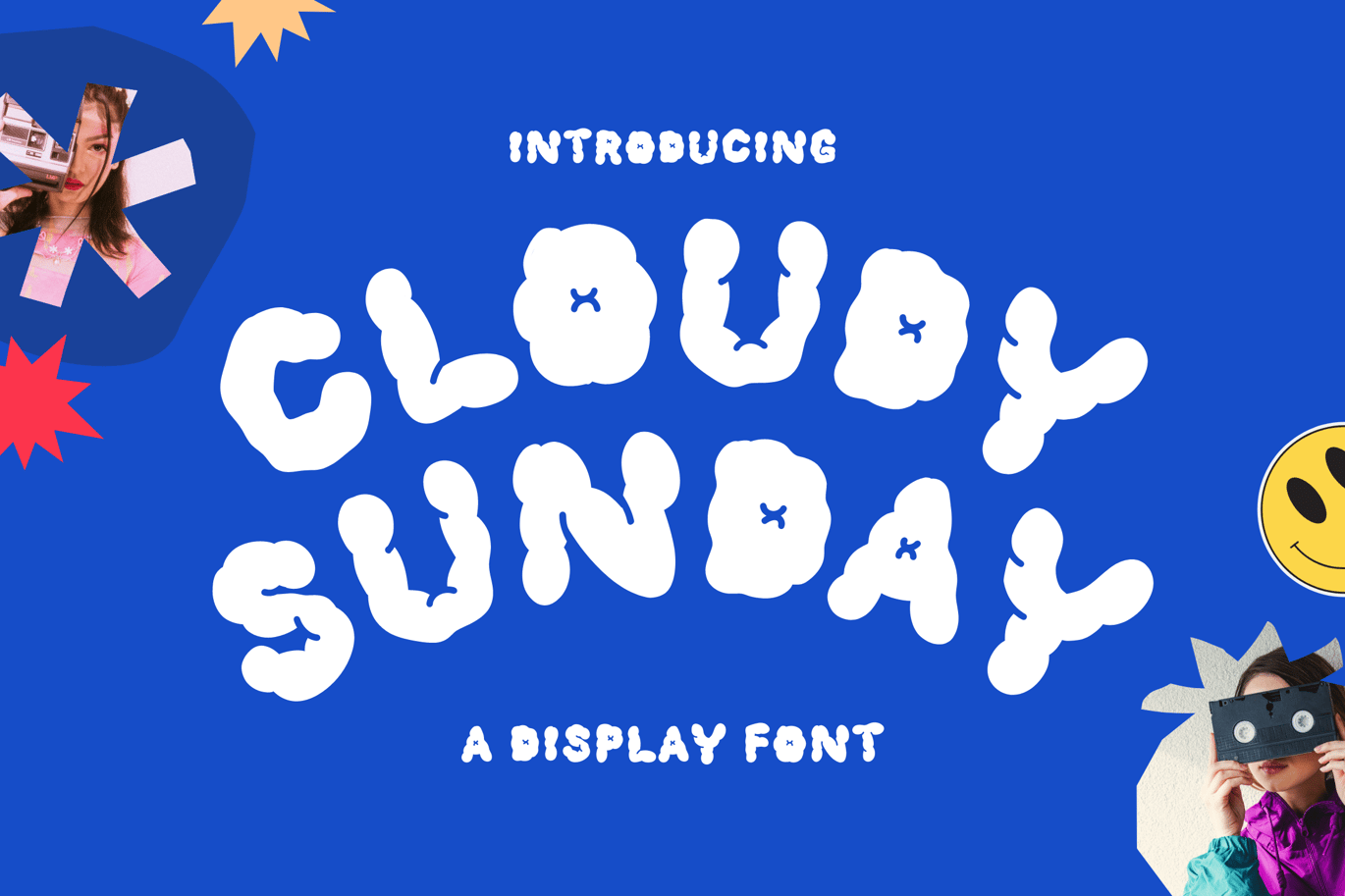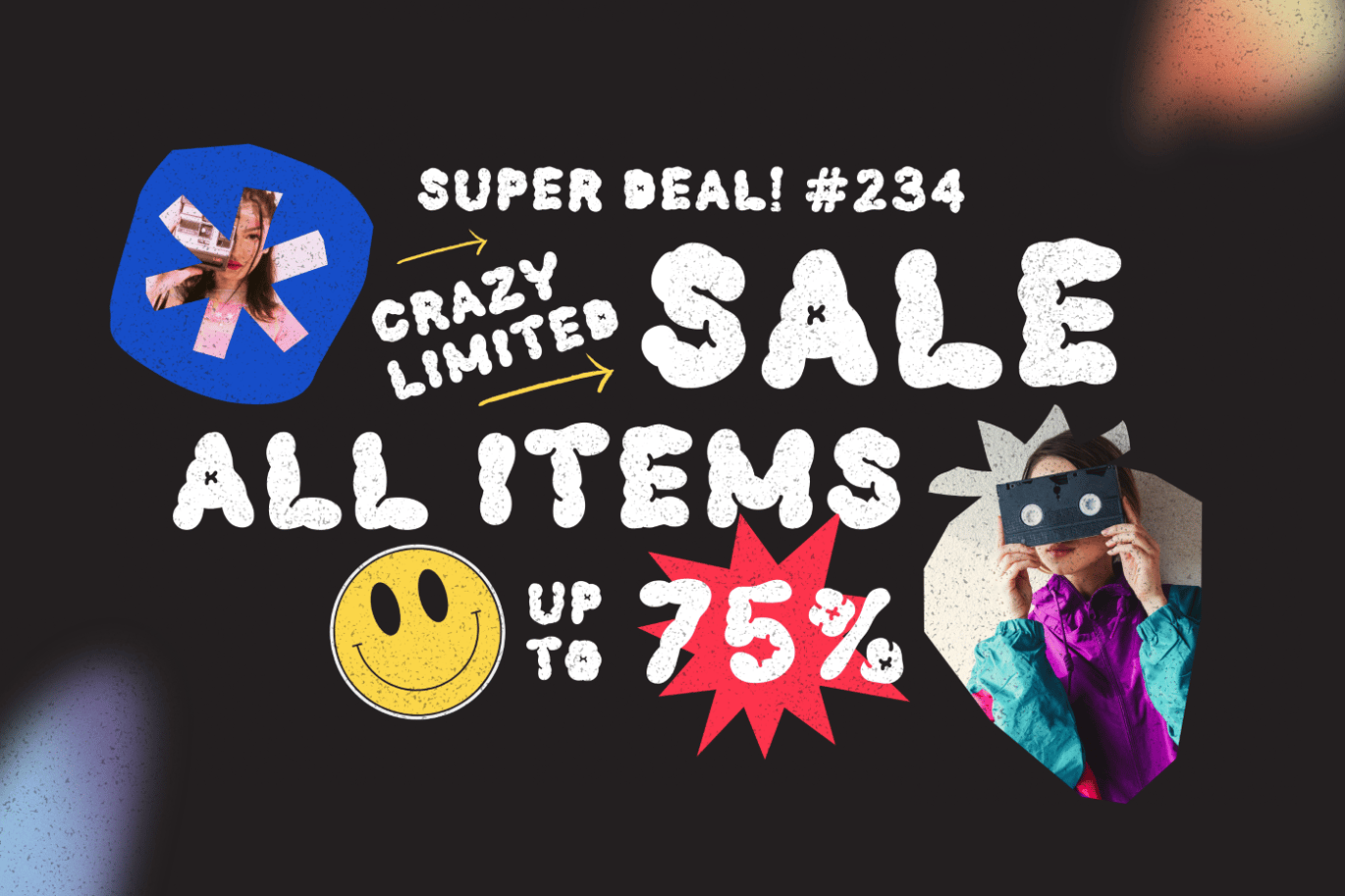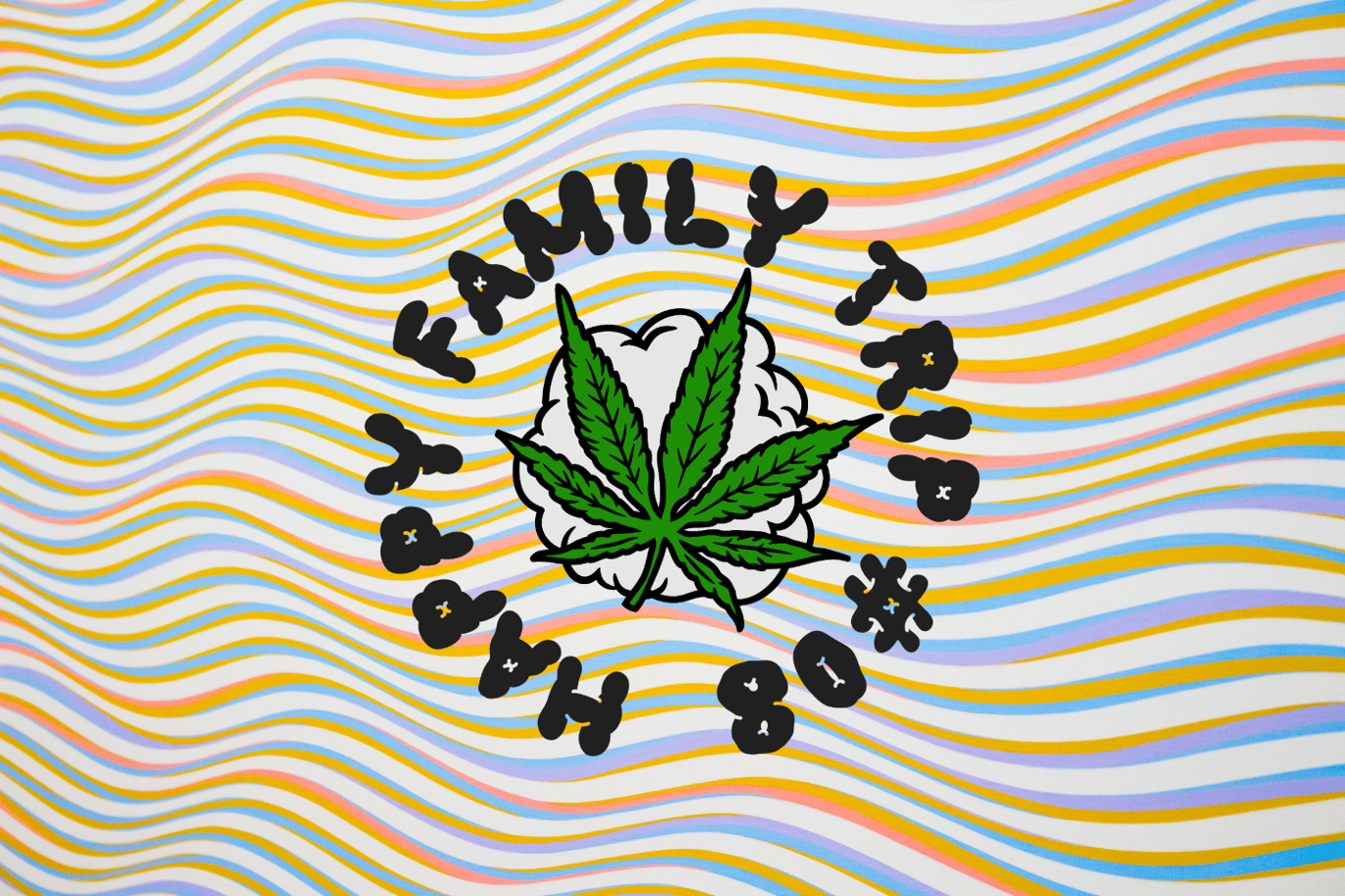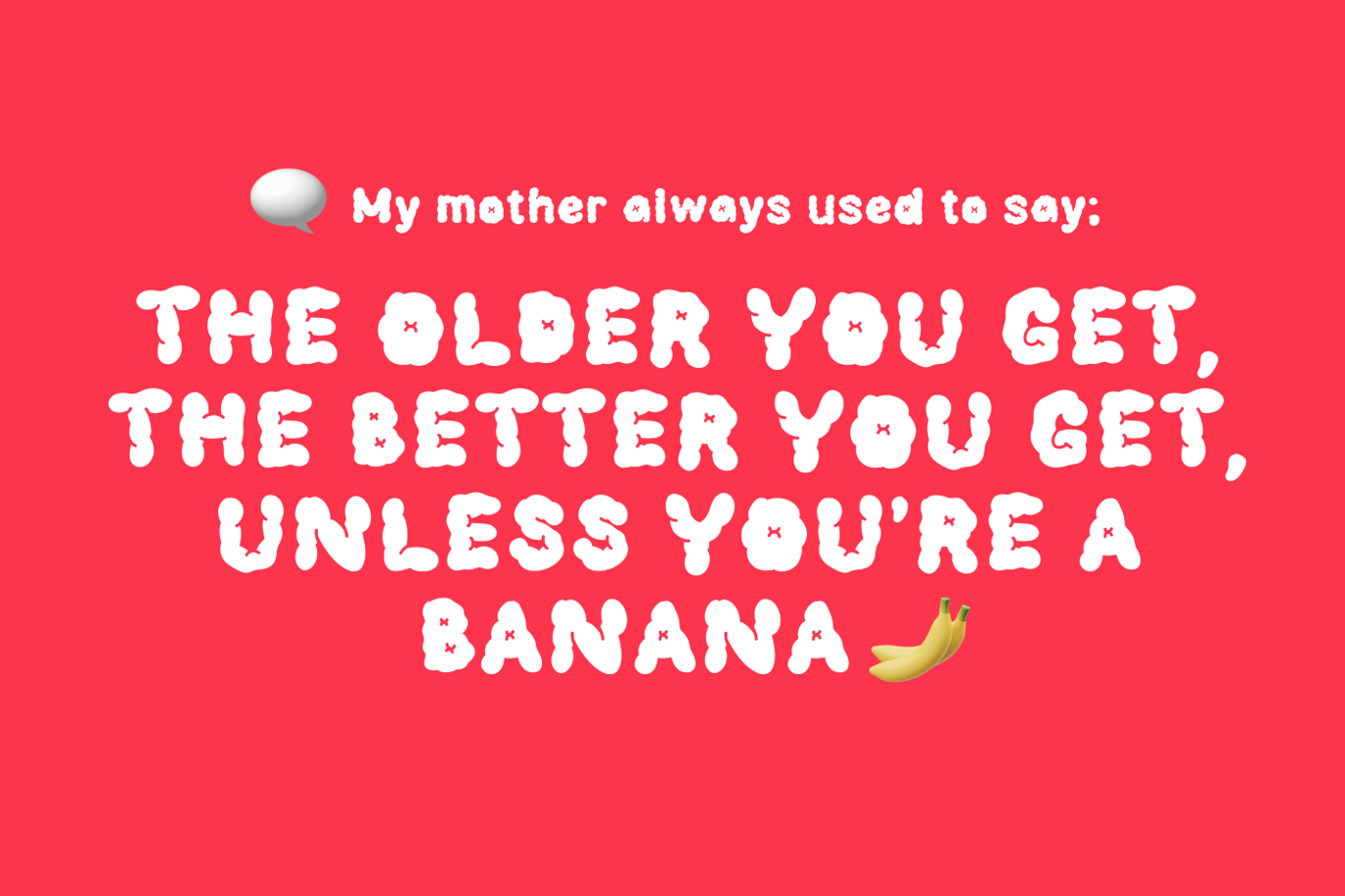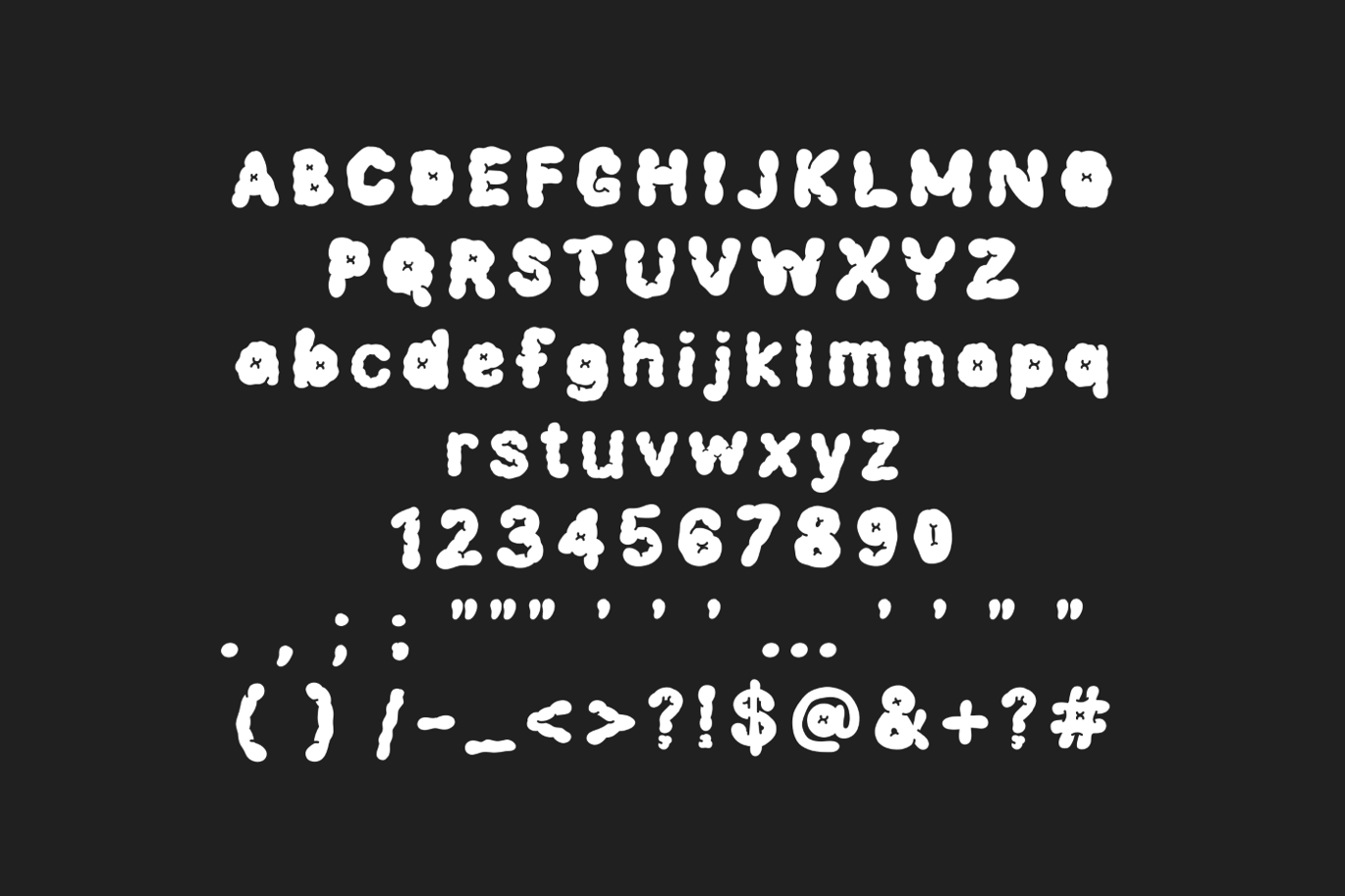
Cloudy Sunday – 90s Retro Display Font
Introducing “Cloudy Sunday,” the perfect font to bring back the nostalgic vibes of the 90s. This retro display font is designed to captivate with its unique bubble style, reminiscent of the era’s iconic typography. With its bold and playful appearance, Cloudy Sunday is ideal for any project that calls for a dose of vintage charm. The carefully crafted letterforms exude a sense of nostalgia, instantly transporting you back to the days of neon colors and cassette tapes. Embrace the spirit of the 90s with Cloudy Sunday and let your designs make a bold statement with this timeless typeface.